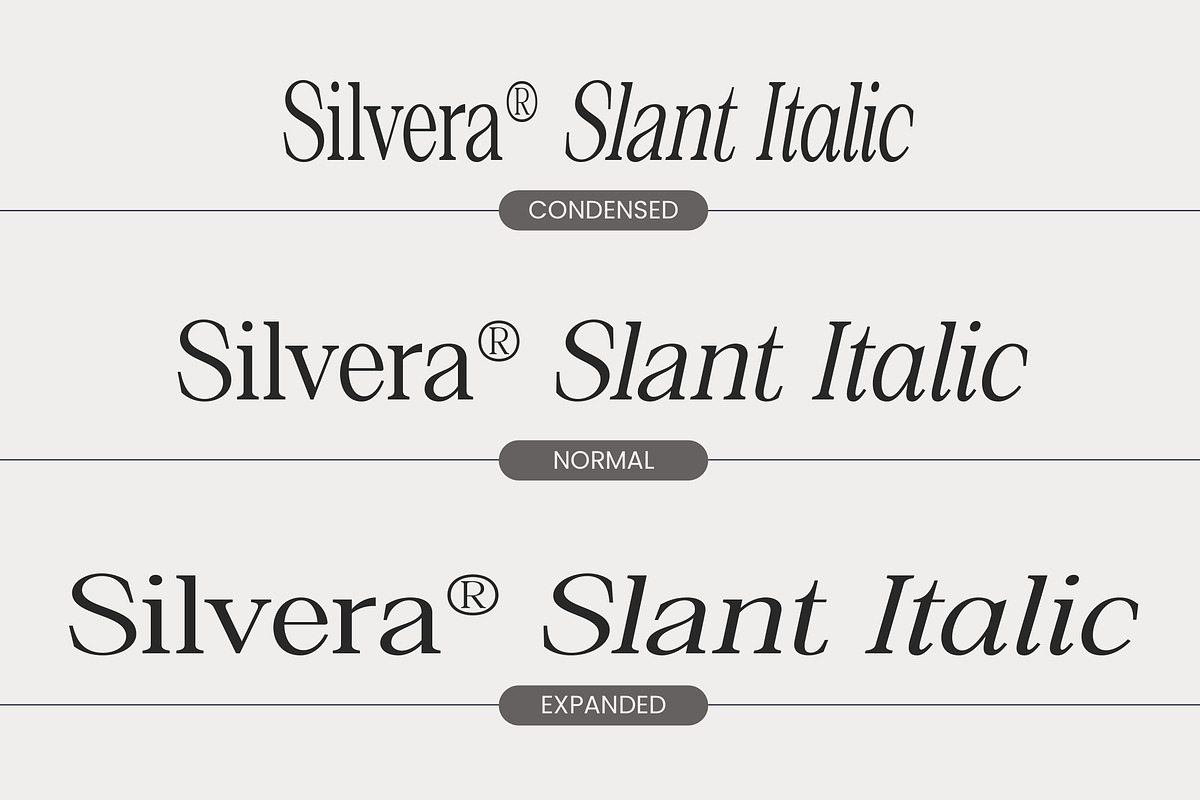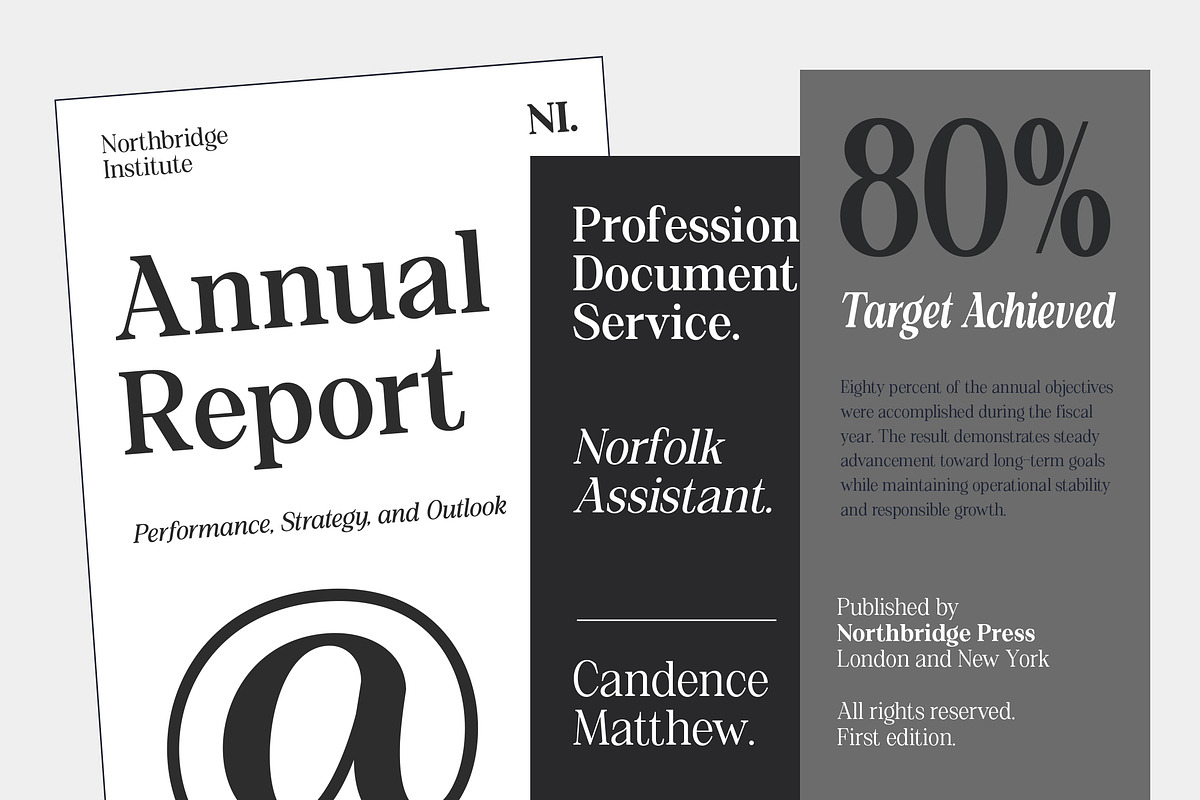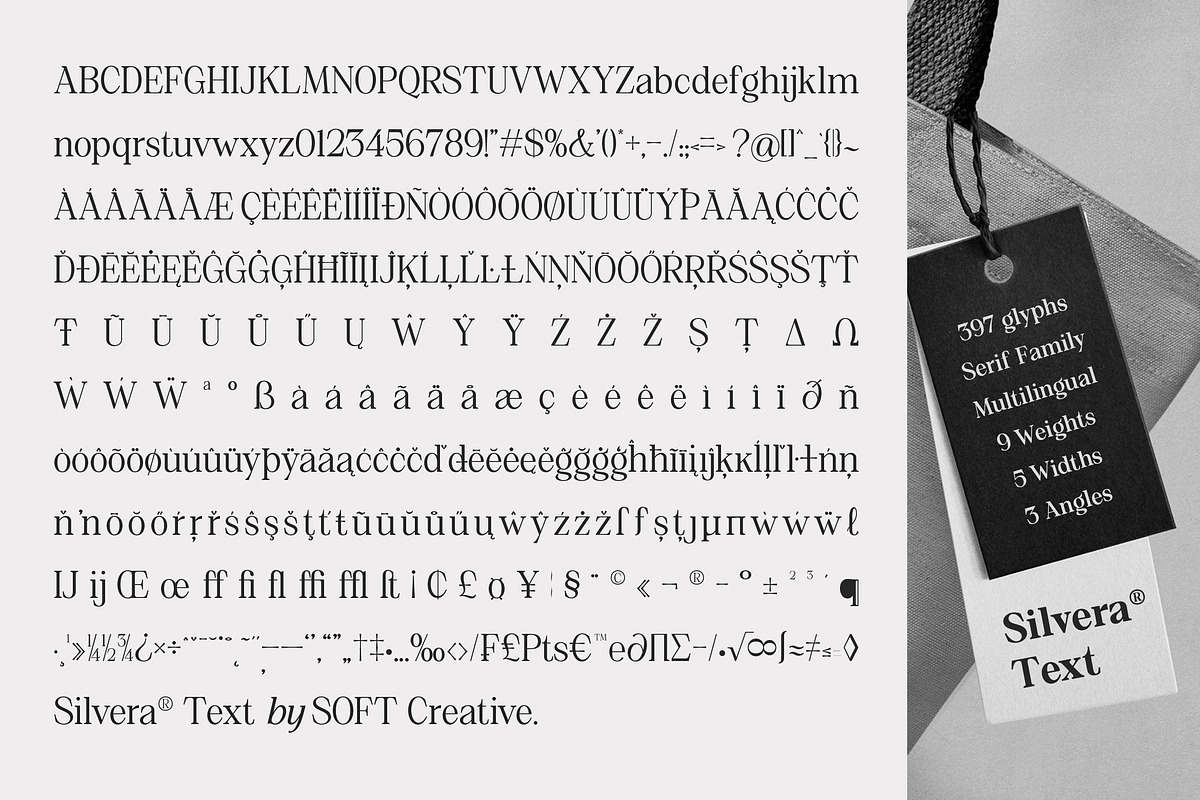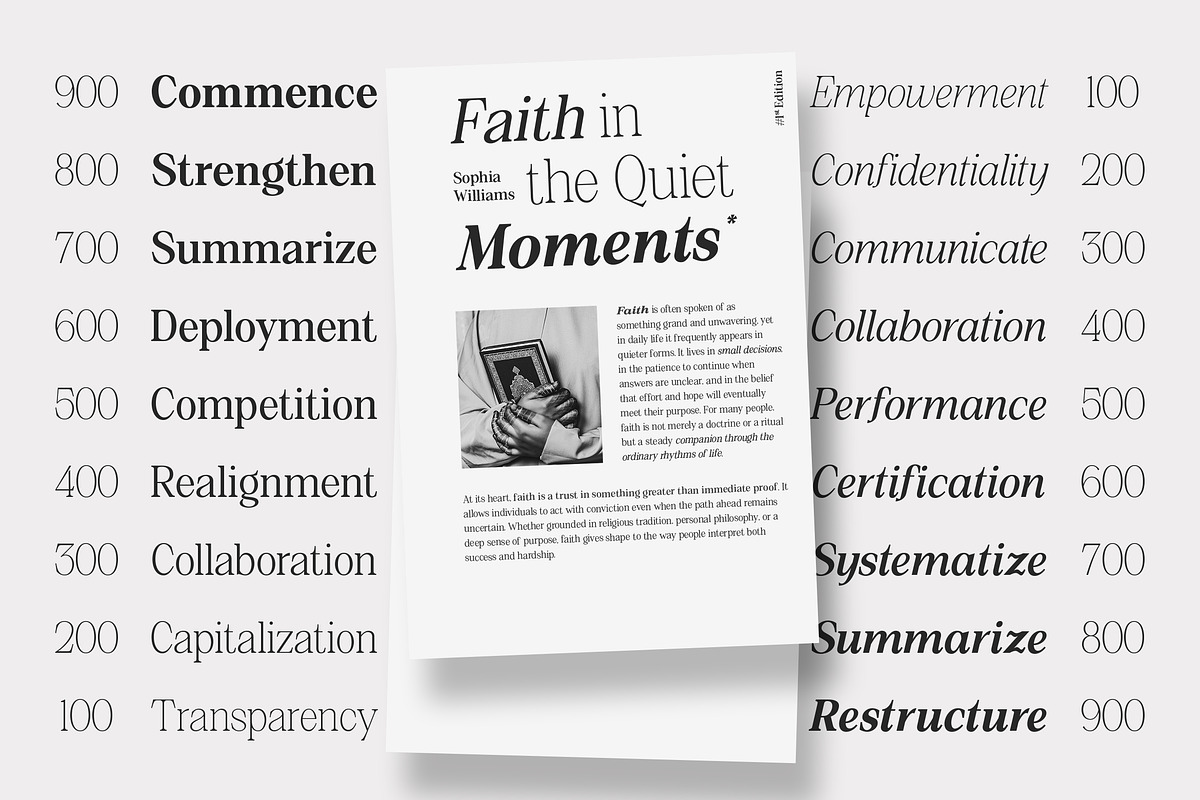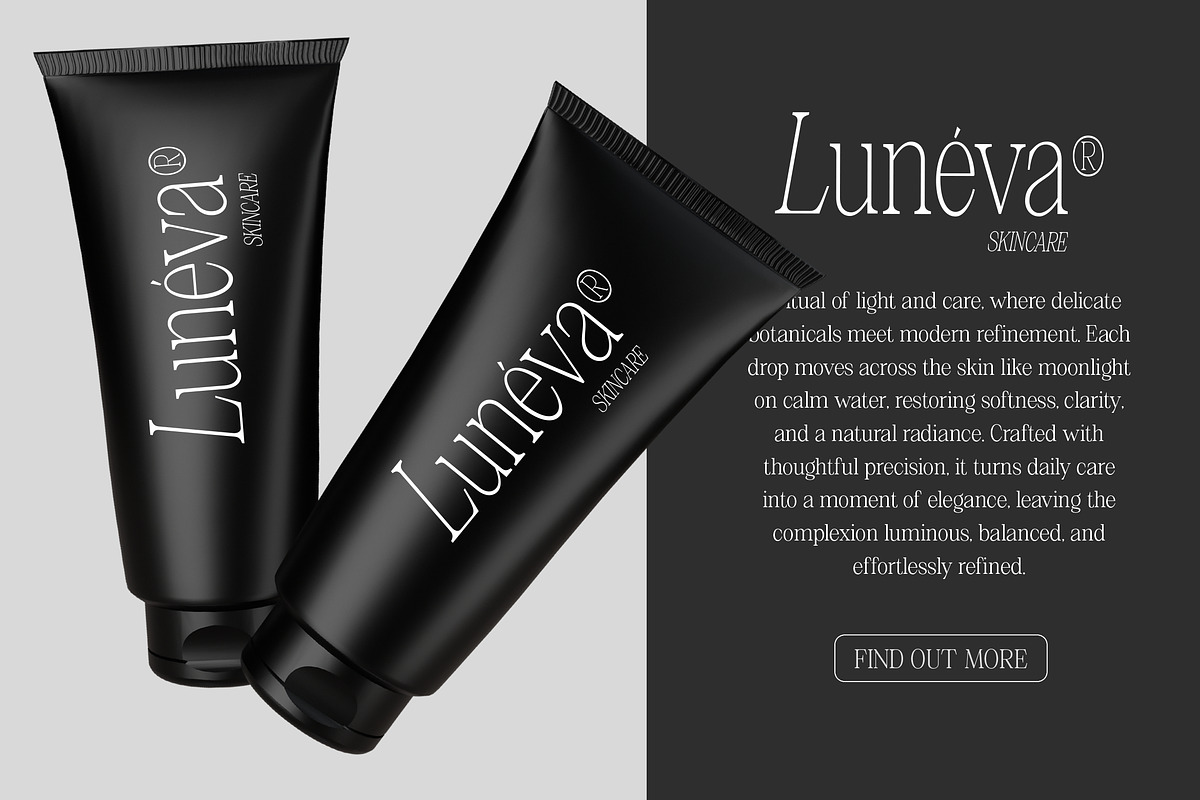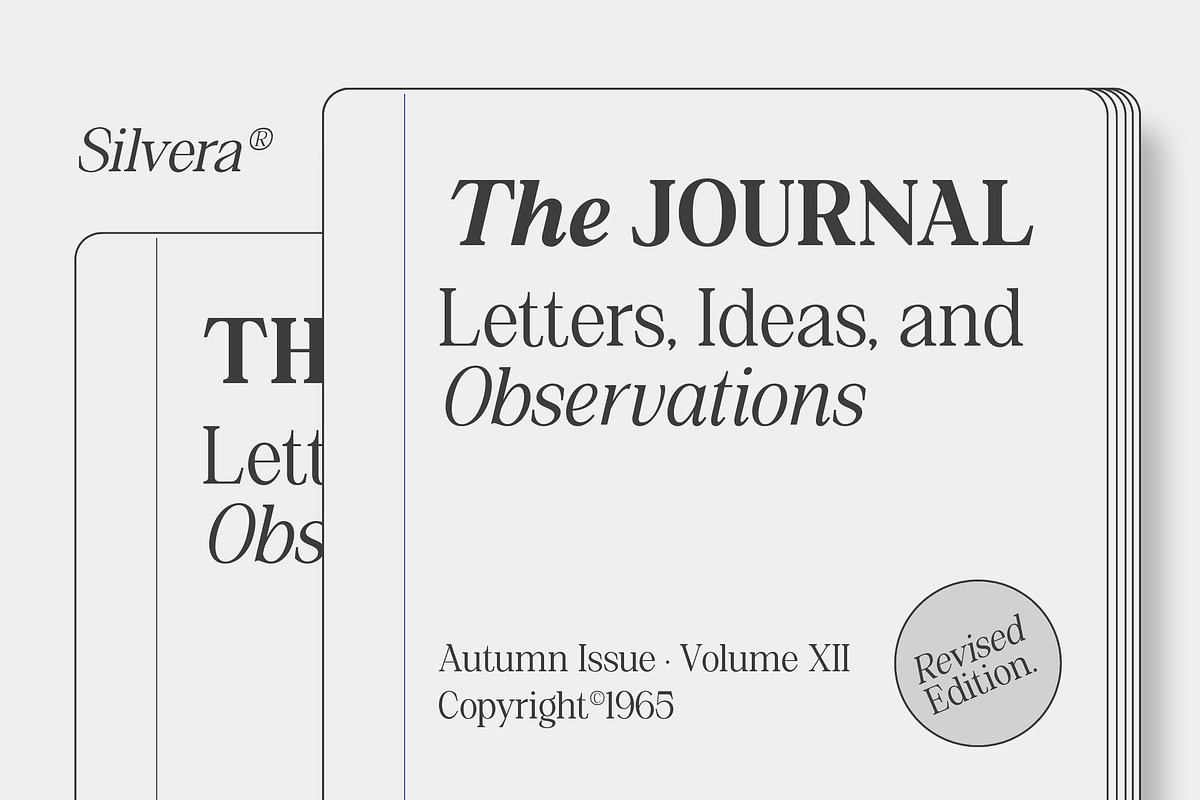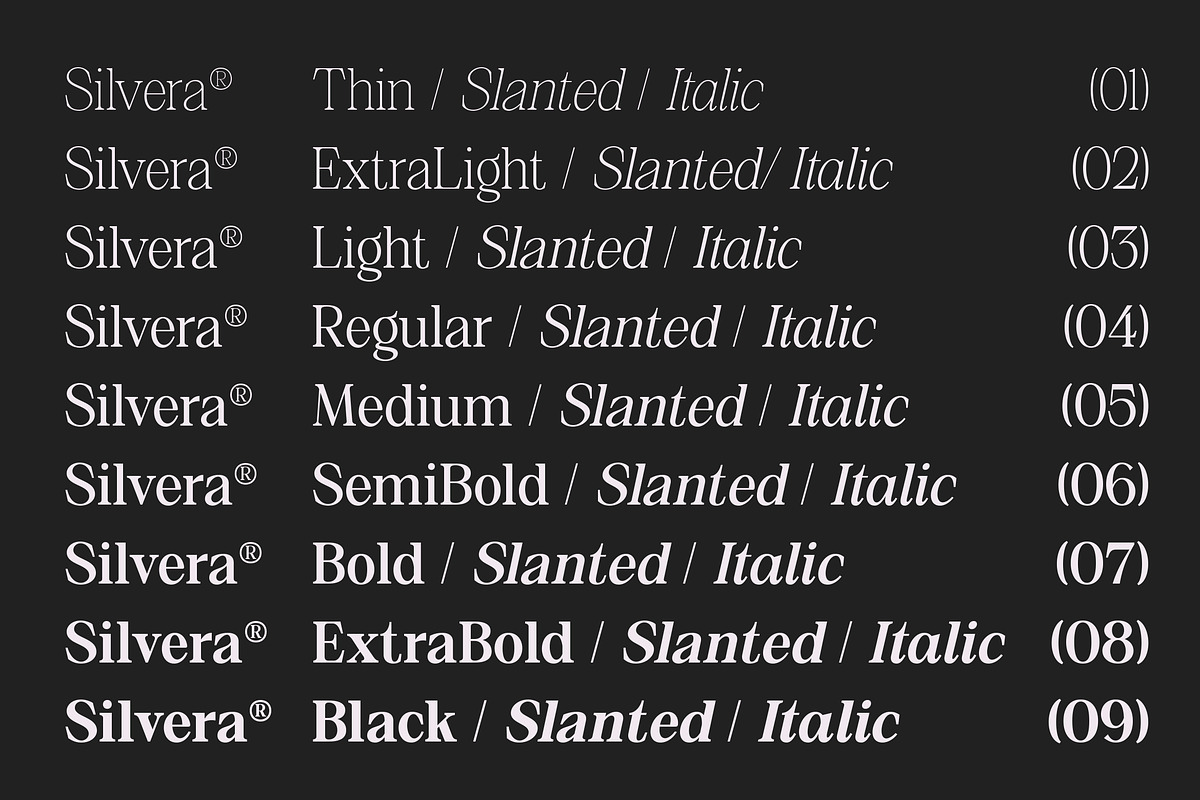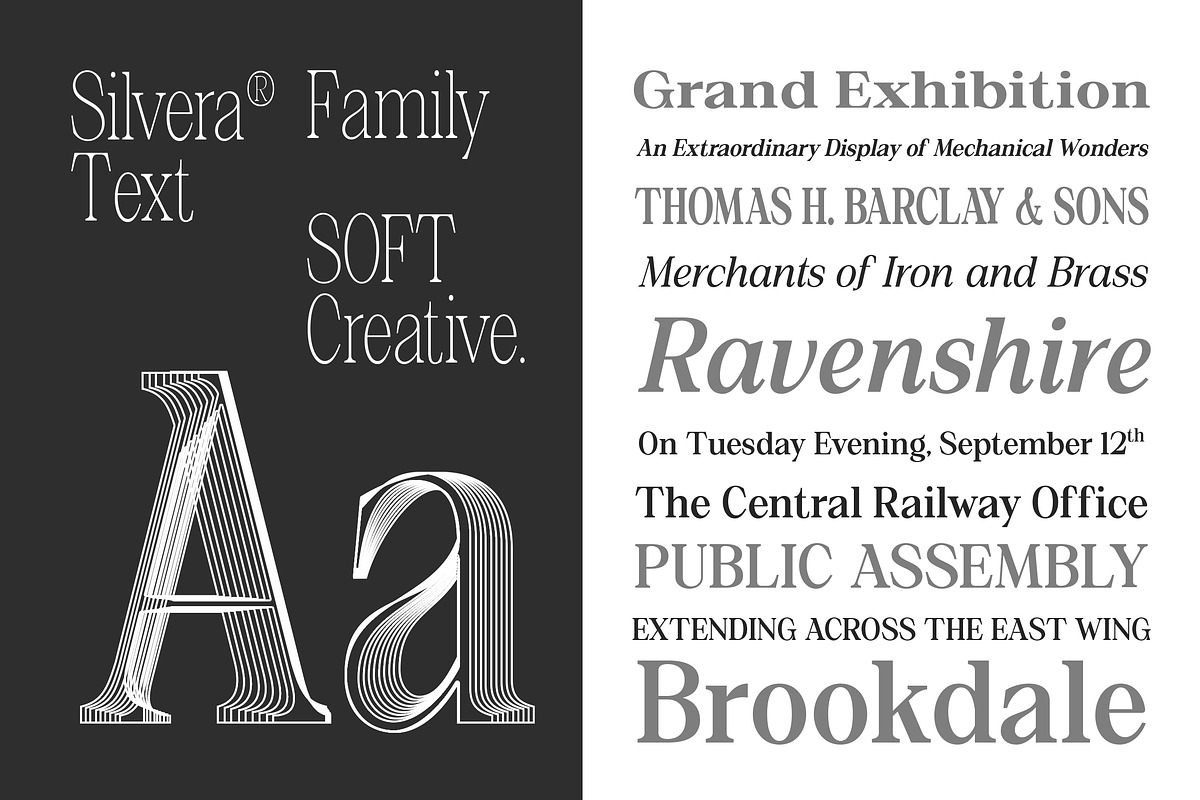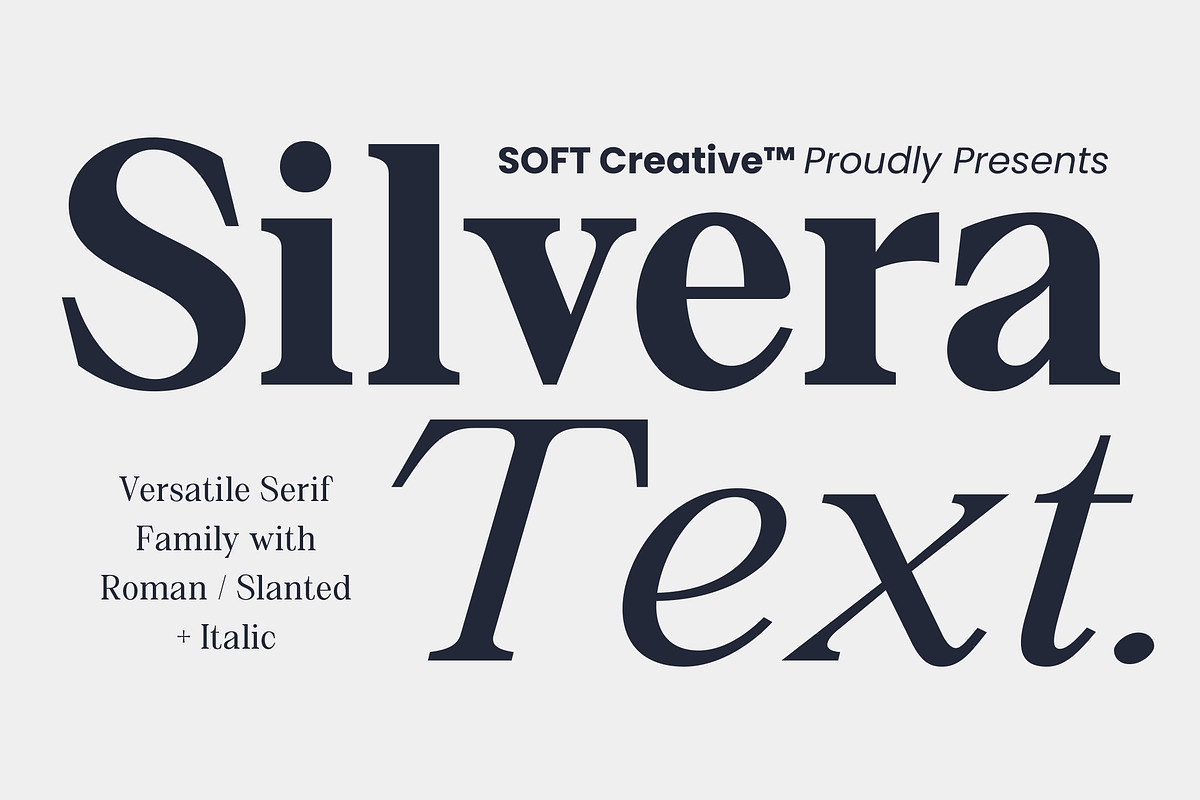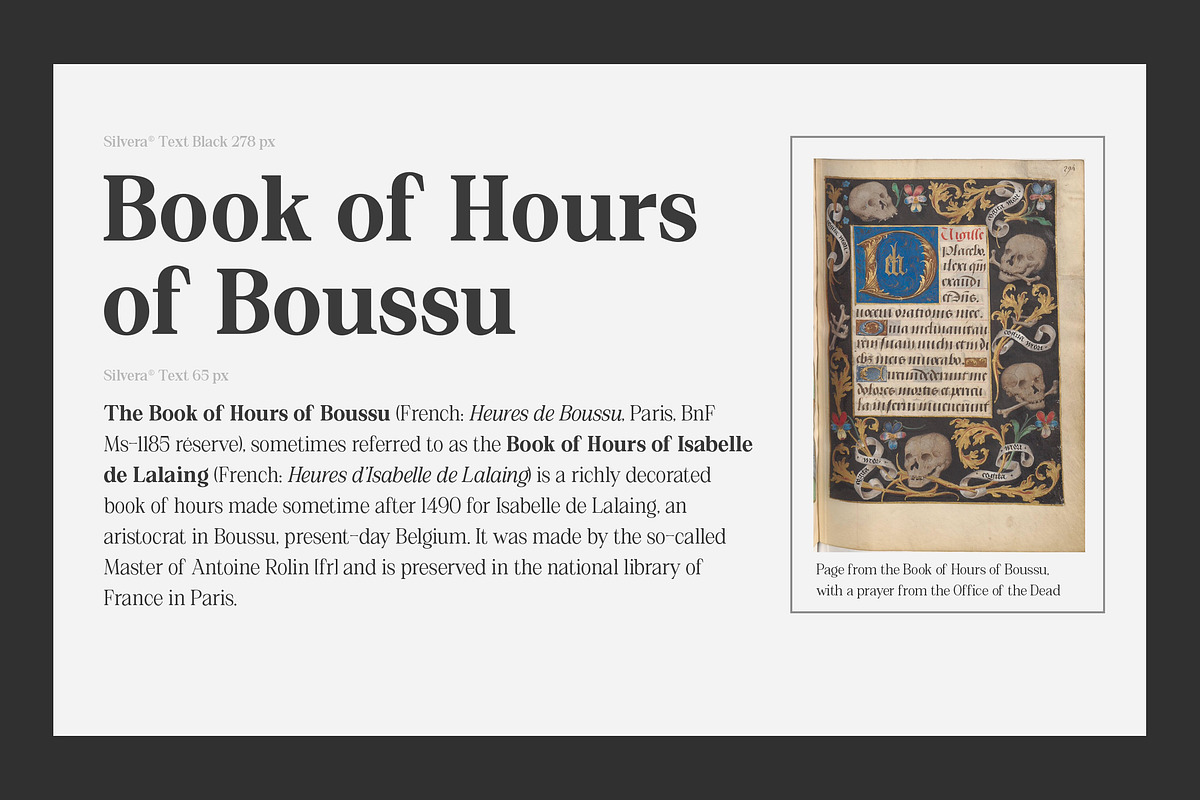
Silvera Text
Silvera Text is a refined serif typeface designed for clarity, elegance, and versatility. Built with balanced proportions and carefully crafted serif details, it offers a timeless typographic voice that works beautifully across both modern and classic design contexts. As a versatile serif family, Silvera Text includes Roman, Slanted, and Italic styles, giving designers the flexibility to create dynamic typographic hierarchy while maintaining consistency and sophistication. The letterforms are designed to perform well in both display settings and extended text, making it suitable for editorial layouts and refined branding work. Silvera Text is ideal for editorial design, publishing, branding, magazines, books, luxury packaging, and professional typography where readability and elegance are equally important. With its graceful structure and contemporary refinement, Silvera Text brings a confident and polished presence to any design project. Key Features Roman, Slanted & Italic styles Elegant and balanced serif construction Designed for readability in text and display Suitable for editorial, branding, and publishing Clean and sophisticated typographic character